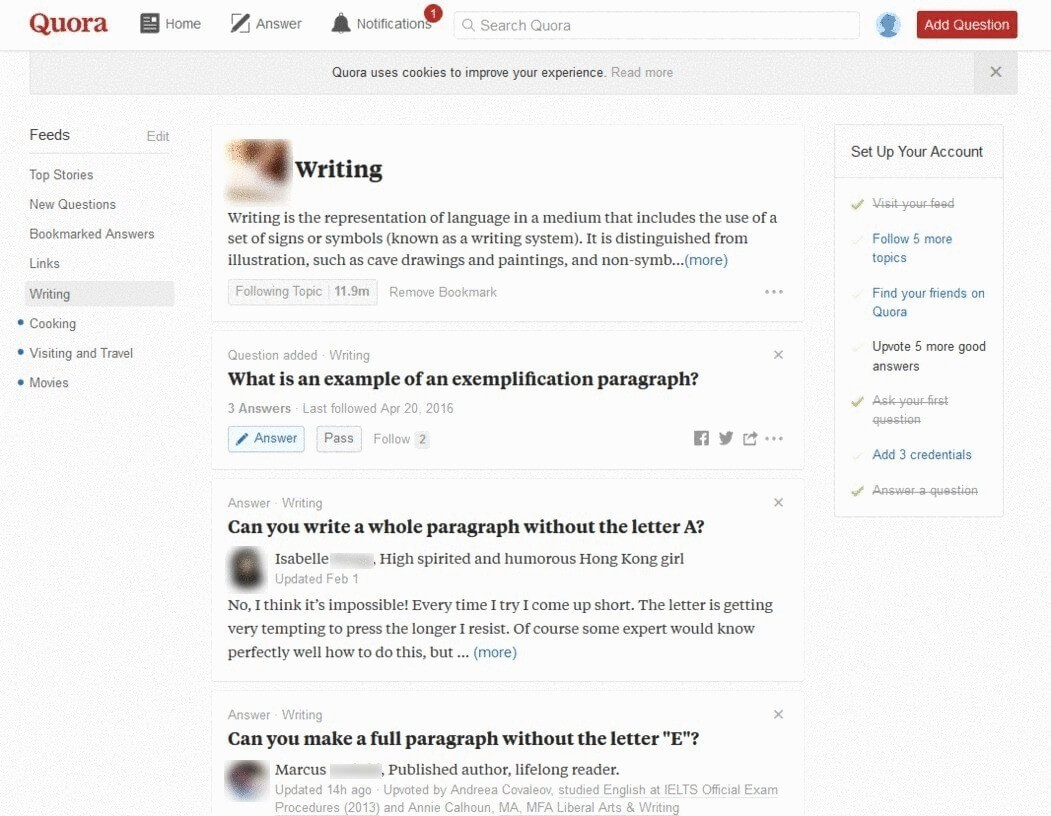
What Font Does Quora Use . What's the font used for quora logo? Apr 24, 2012 at 07:56. The time is now 06:43. They began with le monde courrier and made many modifications including widening the ‘q’ and adding a custom tail that was perhaps inspired by the font’s tilde (see cuban council’s exploration below). Quora font is → le monde courrier. Forum → font identification → back to. The closest font we can find for quora logo is le monde courrier bold, which is a slab serif font designed by jean françois porchez and published by. Is the quora font free to download and use? If you' really want to keep the rounded dot for the tail, i would suggest switching to a rounded font (think arial rounded mt) so that the dot feels. Given it’s a custom typeface exclusive to quora, you won’t find it up for grabs.
What's the font used for quora logo? Given it’s a custom typeface exclusive to quora, you won’t find it up for grabs. Quora font is → le monde courrier. The closest font we can find for quora logo is le monde courrier bold, which is a slab serif font designed by jean françois porchez and published by. If you' really want to keep the rounded dot for the tail, i would suggest switching to a rounded font (think arial rounded mt) so that the dot feels. Forum → font identification → back to. Is the quora font free to download and use? They began with le monde courrier and made many modifications including widening the ‘q’ and adding a custom tail that was perhaps inspired by the font’s tilde (see cuban council’s exploration below). The time is now 06:43. Apr 24, 2012 at 07:56.
What Font Does Quora Use What's the font used for quora logo? Apr 24, 2012 at 07:56. Given it’s a custom typeface exclusive to quora, you won’t find it up for grabs. The time is now 06:43. They began with le monde courrier and made many modifications including widening the ‘q’ and adding a custom tail that was perhaps inspired by the font’s tilde (see cuban council’s exploration below). Quora font is → le monde courrier. If you' really want to keep the rounded dot for the tail, i would suggest switching to a rounded font (think arial rounded mt) so that the dot feels. The closest font we can find for quora logo is le monde courrier bold, which is a slab serif font designed by jean françois porchez and published by. What's the font used for quora logo? Forum → font identification → back to. Is the quora font free to download and use?
What Font Does Amazon Use in 2023? Cherry Picks What Font Does Quora Use If you' really want to keep the rounded dot for the tail, i would suggest switching to a rounded font (think arial rounded mt) so that the dot feels. Given it’s a custom typeface exclusive to quora, you won’t find it up for grabs. The closest font we can find for quora logo is le monde courrier bold, which is. What Font Does Quora Use.
What Font Does LinkedIn Use? (March 2023) What Font Does Quora Use If you' really want to keep the rounded dot for the tail, i would suggest switching to a rounded font (think arial rounded mt) so that the dot feels. What's the font used for quora logo? Apr 24, 2012 at 07:56. Is the quora font free to download and use? The closest font we can find for quora logo is. What Font Does Quora Use.
What Font Does Hollywood Sign Use? Graphic Pie What Font Does Quora Use Given it’s a custom typeface exclusive to quora, you won’t find it up for grabs. What's the font used for quora logo? The closest font we can find for quora logo is le monde courrier bold, which is a slab serif font designed by jean françois porchez and published by. Is the quora font free to download and use? They. What Font Does Quora Use.